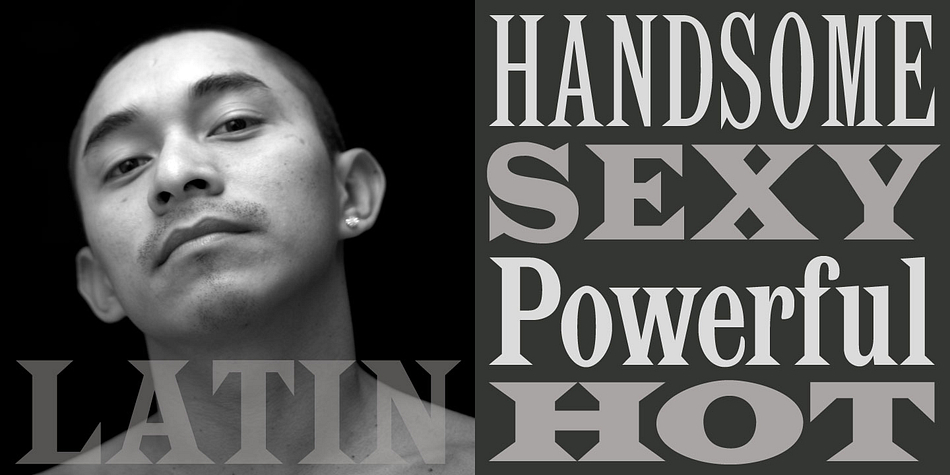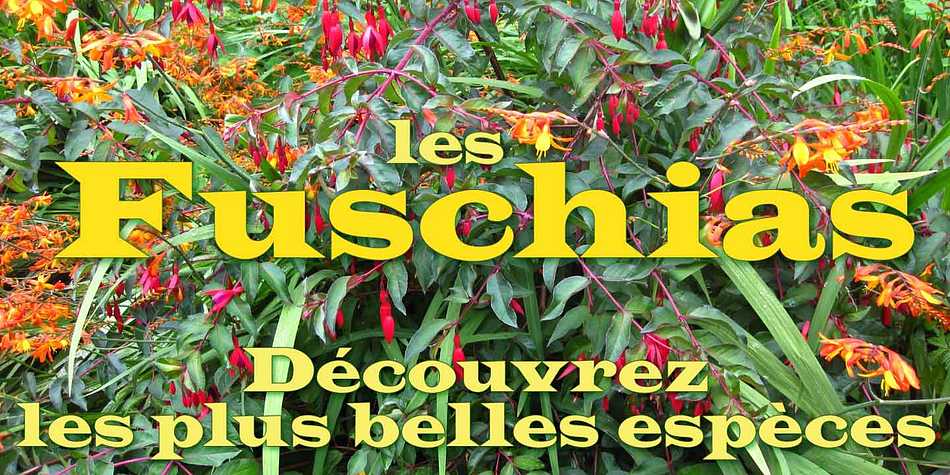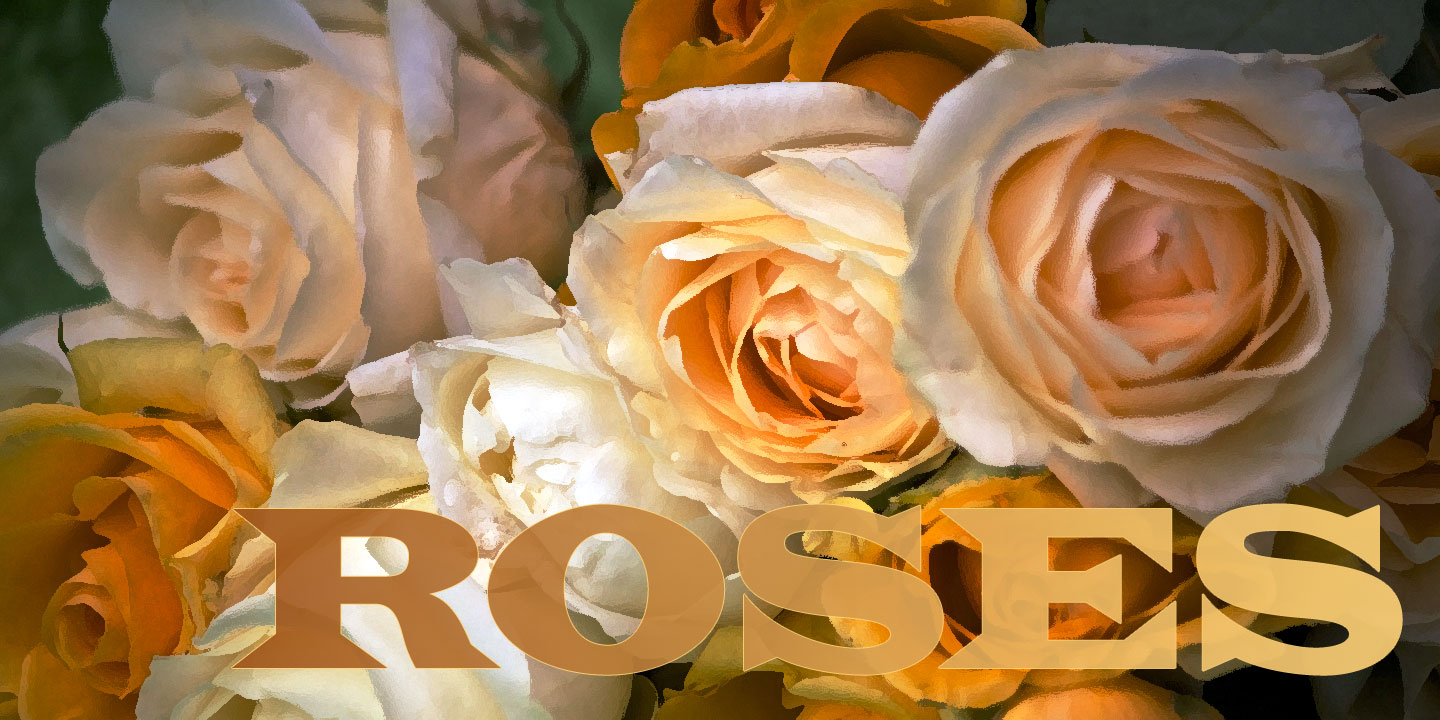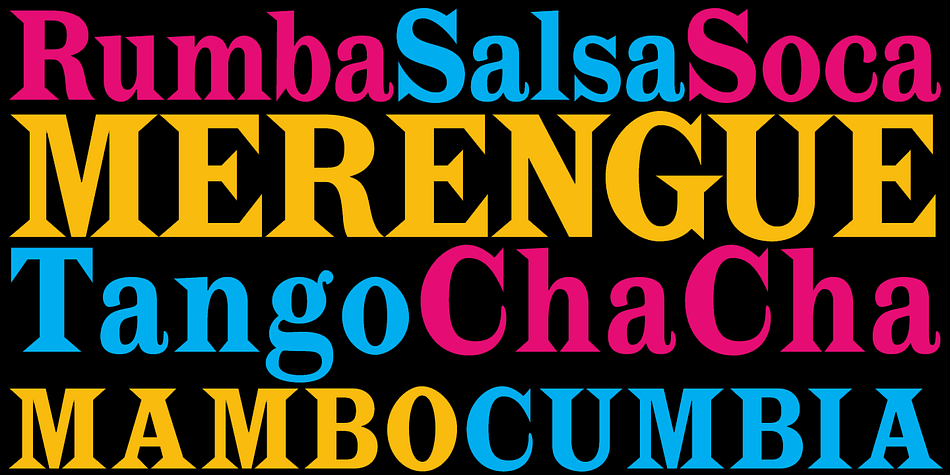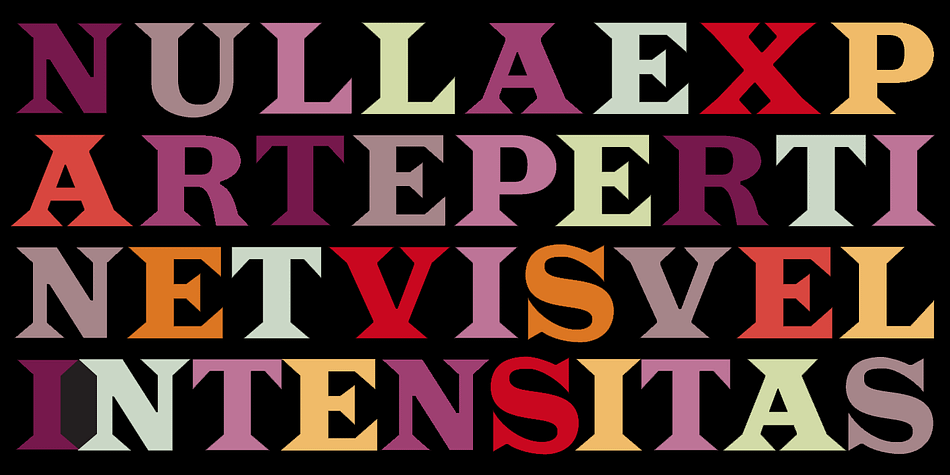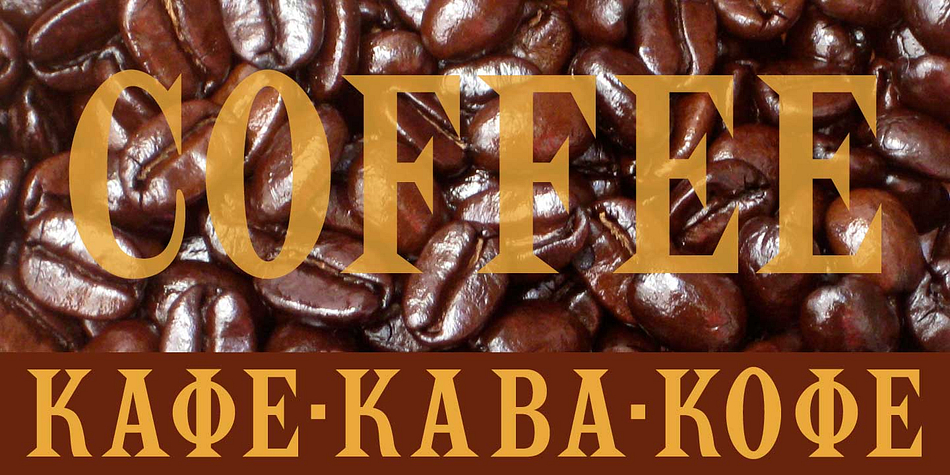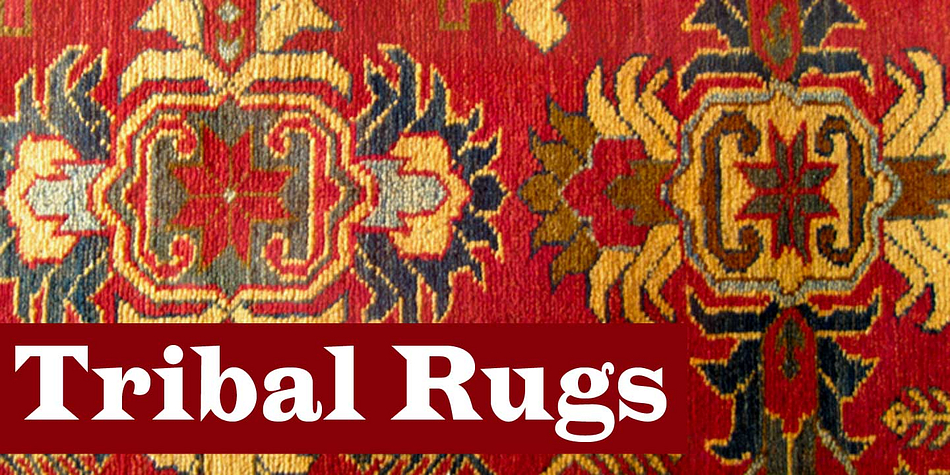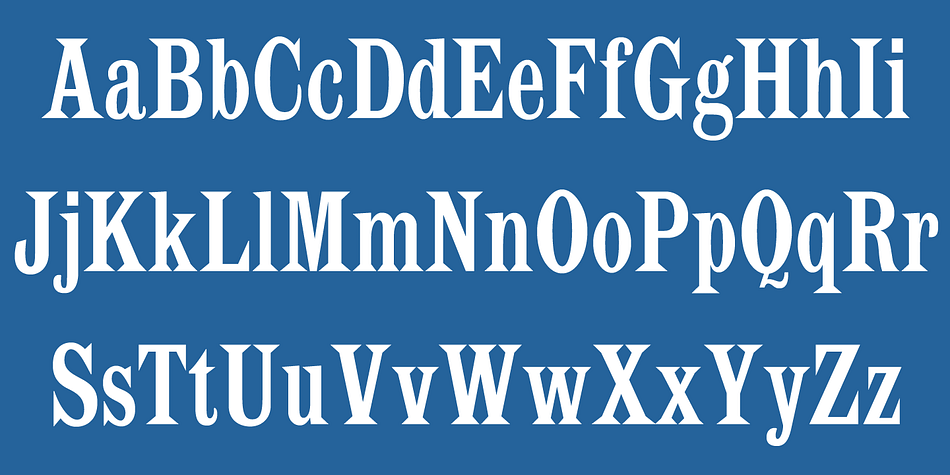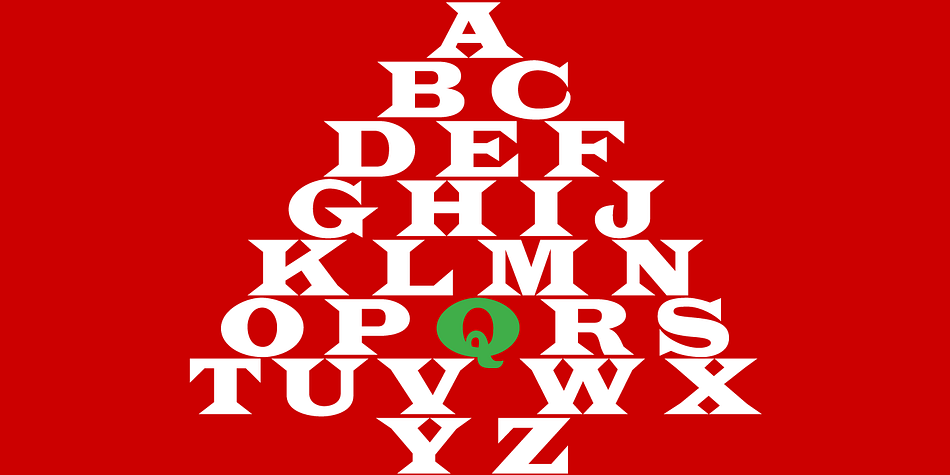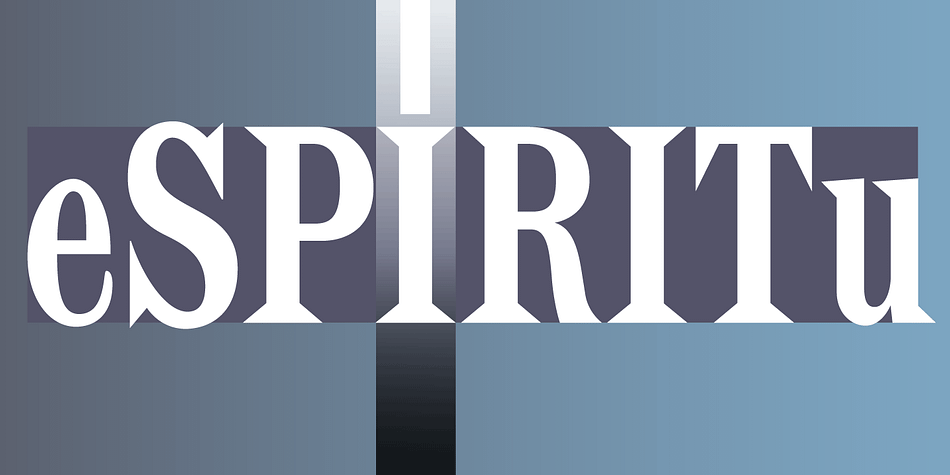
Latin CT is a western and display serif font family. This typeface has six styles and was published by CastleType.
The ‘Latin’ family of typefaces, first popular in the last half of the nineteenth century, is characterized by its large, sharp, triangular serifs. With six widths (from Extra Condensed to Wide), Latin CT offers the most extensive collection of Latin fonts available, each with a large character set that includes support for all European languages, including those that use the Cyrillic alphabet. From the sleak elegance of Latin CT Extra Condensed to the brash boldness of Latin CT Wide, you will find a width to fit your typographic needs.